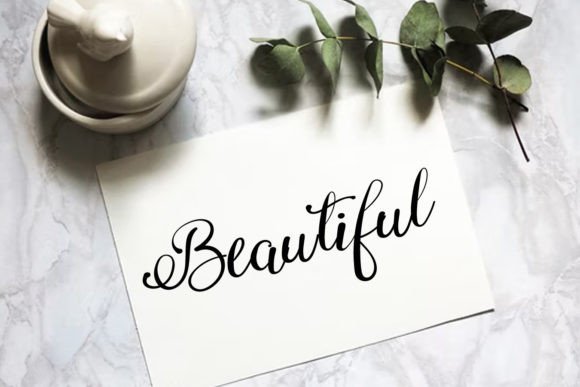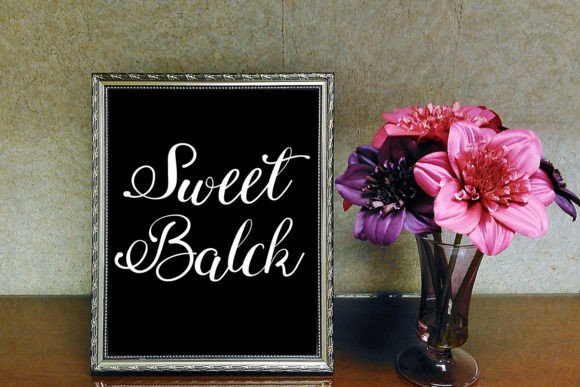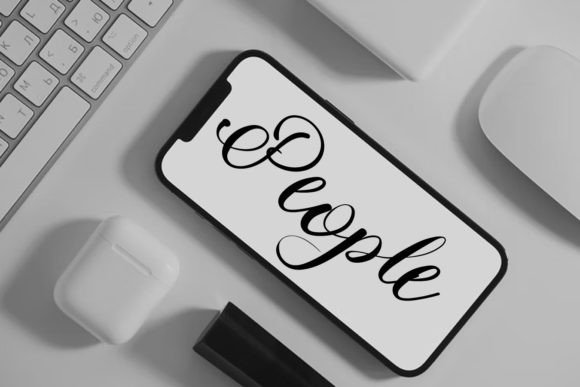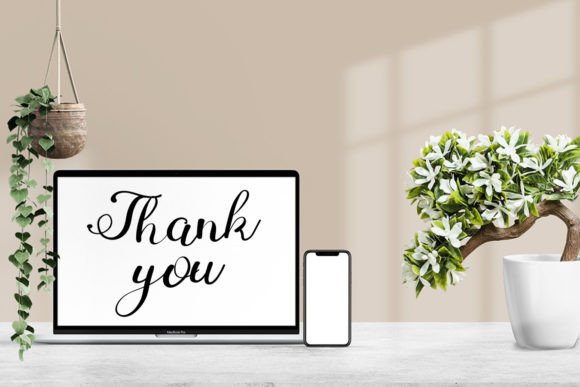
Introducing Always Betterlive Font: Elevate Your Designs with a Fresh and Beautiful Handwritten Style
Are you tired of using the same old fonts in your designs? Look no further! Always Betterlive Font is a stunning, fresh, and beautiful handwritten font that’s perfect for designers, crafters, and businesses looking to elevate their visual identity. This versatile font is ideal for a wide range of design purposes, including YouTube banners, cover logo mockups, wedding invitations, ID cards, flyers, and crafts.
What Makes Always Betterlive Font Stand Out?
Always Betterlive Font is a unique and simple font that’s designed to help your business progress and develop. Its fresh and beautiful handwritten style adds a touch of elegance and sophistication to any design, making it perfect for creative professionals and businesses looking to make a statement. Whether you’re designing a logo, creating a social media graphic, or crafting a wedding invitation, this font is sure to impress.
Key Features of Always Betterlive Font
- Fresh and Beautiful Handwritten Style: Always Betterlive Font boasts a unique and elegant handwritten style that’s perfect for designs that require a personal touch.
- Versatile and Multi-Purpose: Use this font for a wide range of design purposes, including YouTube banners, cover logo mockups, wedding invitations, ID cards, flyers, and crafts.
- Simple and Unique: This font is designed to be simple, yet unique, making it perfect for businesses and designers looking to stand out from the crowd.
- Easily Readable: Always Betterlive Font is optimized for readability, ensuring that your designs are clear and easy to understand.
How to Use Always Betterlive Font in Your Designs
Using Always Betterlive Font in your designs is easy! Here are a few ideas to get you started:
- YouTube Banners: Create eye-catching YouTube banners that showcase your brand’s personality and style.
- Cover Logo Mockups: Design stunning cover logo mockups that elevate your brand’s visual identity.
- Wedding Invitations: Create beautiful and elegant wedding invitations that set the tone for the big day.
- ID Cards: Design professional and stylish ID cards that make a great impression.
- Flyers: Create attention-grabbing flyers that promote your business or event.
- Crafts: Use Always Betterlive Font to add a personal touch to your crafts, such as handmade cards, gift tags, and more.
Why Choose Always Betterlive Font?
With so many fonts available, why choose Always Betterlive Font? Here are just a few reasons:
- Unique and Exclusive: Always Betterlive Font is a one-of-a-kind font that’s designed to help you stand out from the crowd.
- High-Quality Design: This font is designed with high-quality and precision, ensuring that it looks great in any design.
Always Betterlive Font is a fresh and beautiful handwritten font that’s perfect for designers, crafters, and businesses looking to elevate their visual identity. With its unique and simple style, this font is ideal for a wide range of design purposes. Whether you’re creating a logo, social media graphic, or craft, Always Betterlive Font is sure to impress. So why wait? Download Always Betterlive Font today and take your designs to the next level!